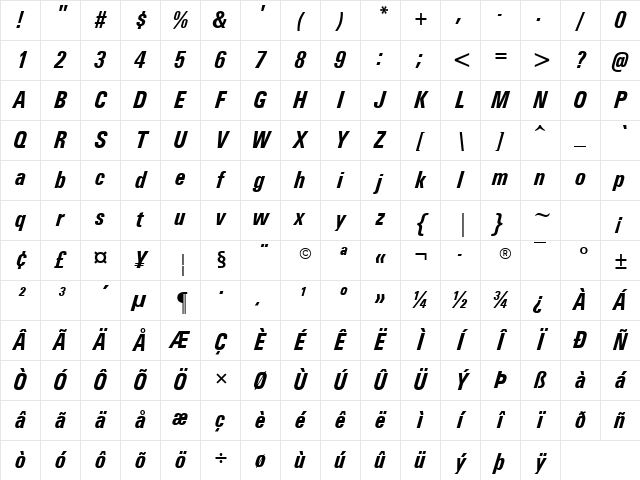
Univers Condensed Bold Italic Free Font
Univers Condensed Bold Italic
Univers Condensed Family
Design Context for Univers Condensed
Univers Condensed is a composed and adaptable typeface that performs quietly and consistently across a wide range of design contexts. The slanted form adds forward momentum and visual energy. Its bold stroke weight gives it real presence on the page. Its narrow stance lets it pack a punch even in space-constrained designs.
Pro Tip: Use Univers Condensed for emphasis, pull quotes, and subheadings where its slanted energy can add rhythm to the layout.